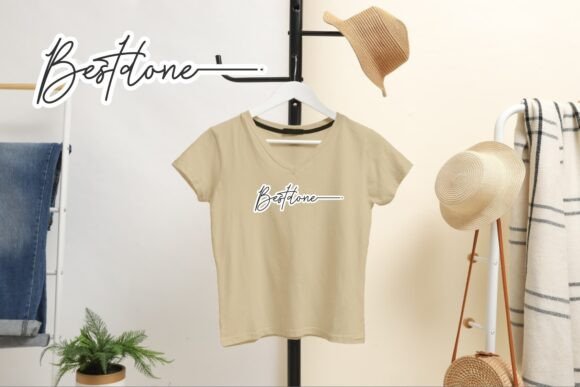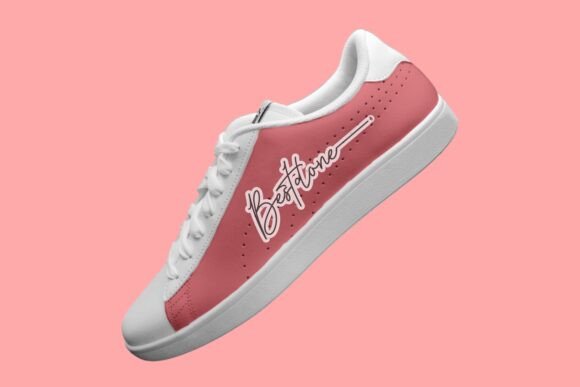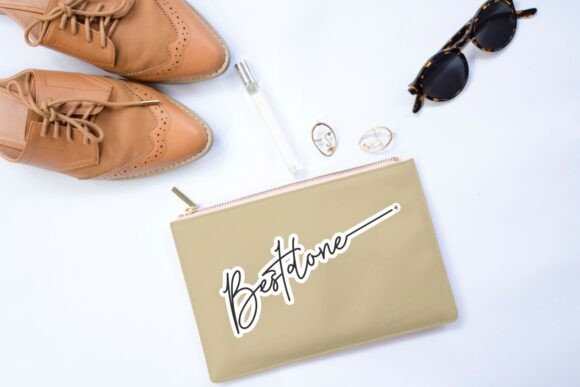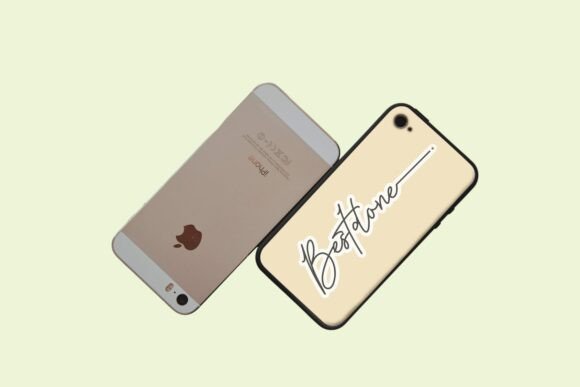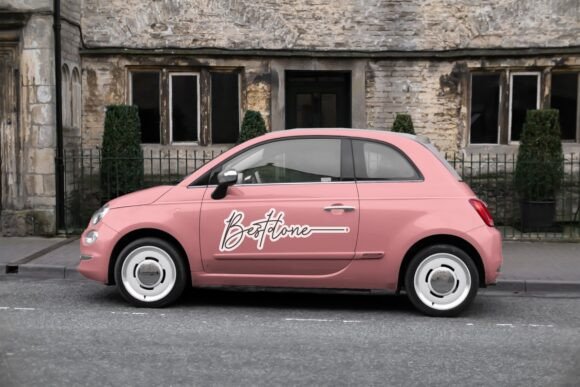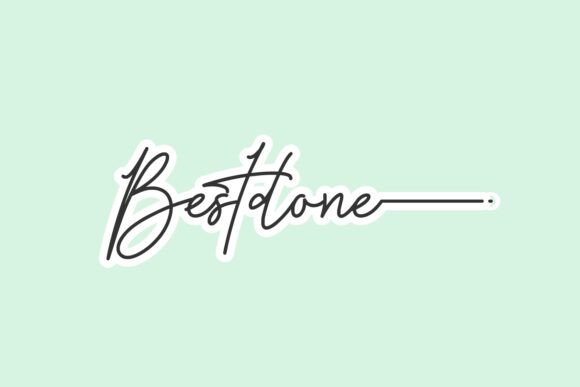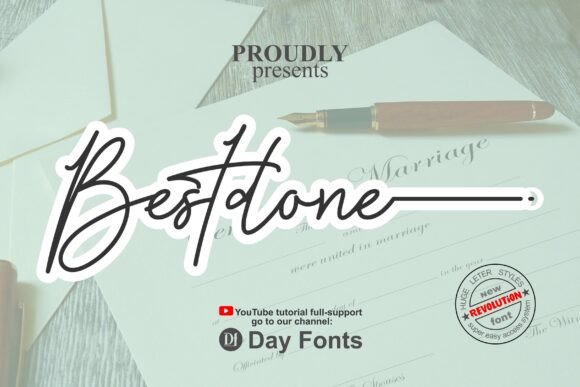
Introducing Bestdone Font: Elevate Your Designs with Elegance
In the world of typography, a font can make all the difference in the aesthetic and appeal of a design. For those seeking a touch of sophistication and elegance, the Bestdone Font is an exceptional choice. This graceful, modern signature calligraphic font is designed to bring a beautiful rhythm to your creations, making it perfect for a wide range of projects.
What is Bestdone Font?
Bestdone is a meticulously crafted font that embodies the essence of modern calligraphy. Its fluid strokes and elegant ligatures give it a distinctive charm that can instantly elevate the visual appeal of any design. Whether you’re working on branding projects, invitations, web graphics, cards, or any other creative endeavor, Bestdone Font is sure to leave a lasting impression.
Key Features of Bestdone Font
- Modern Signature Calligraphy: Bestdone boasts a contemporary take on traditional calligraphy, making it perfect for designs that require a touch of sophistication.
- Beautiful Rhythm: The font’s rhythm is one of its standout features, providing a harmonious flow that enhances the overall beauty of your compositions.
- Versatility: From branding and invitations to web graphics and cards, Bestdone is incredibly versatile and can be used across various mediums.
- Elegant and Classy: The font’s design ensures that your projects exude elegance and class, making it ideal for designs that require a high-end feel.
Use Cases for Bestdone Font
The versatility of Bestdone Font makes it suitable for a myriad of applications. Here are some of the best ways to utilize this stunning font:
- Branding Projects: Create a memorable brand identity with Bestdone. Its elegant appearance makes it perfect for logos, business cards, and corporate materials.
- Invitations: Whether it’s a wedding invitation, a birthday party invite, or any other special occasion, Bestdone adds a touch of luxury and sophistication.
- Web Graphics: Enhance your website’s visual appeal with Bestdone. Use it for headings, banners, and other graphic elements to create a cohesive and stylish look.
- Cards: From greeting cards to postcards, Bestdone can help you create beautiful and heartfelt messages.
Why Choose Bestdone Font?
With so many fonts available, why should you choose Bestdone? Here are a few compelling reasons:
- Unique and Distinctive: Bestdone offers a unique style that sets it apart from more common fonts. Its calligraphic flair ensures your designs stand out.
- High-Quality Design: The font is designed with precision and attention to detail, ensuring it looks great in any size or application.
- Easy to Read: Despite its elegant nature, Bestdone remains highly legible, making it suitable for both headings and body text.
- Time-Saving: With Bestdone, you can achieve professional-looking results quickly and efficiently, saving you time and effort in your design process.
Tips for Using Bestdone Font Effectively
To get the most out of Bestdone Font, consider the following tips:
- Pair it with Complementary Fonts: For maximum impact, pair Bestdone with clean, sans-serif fonts for contrast and visual interest.
- Use it for Headings and Titles: Bestdone shines in headings and titles. Use it to create focal points in your designs.
- Experiment with Colors: While Bestdone looks great in black and dark colors, don’t be afraid to experiment with different colors to match your brand or design theme.
- Pay Attention to Spacing: Proper spacing is crucial for elegant designs. Ensure there’s adequate spacing between letters and lines for a refined look.
| Font Name | Bestdone Font |
| Author | Prast Art |
Bestdone Font is a powerful tool for designers and crafters looking to add a touch of elegance and sophistication to their projects. Its modern signature calligraphic style, beautiful rhythm, and versatility make it an excellent choice for a wide range of applications. By incorporating Bestdone into your design toolkit, you can create stunning compositions that leave a lasting impression. So, why wait? Explore the possibilities with Bestdone Font today and elevate your designs to new heights of elegance and class.